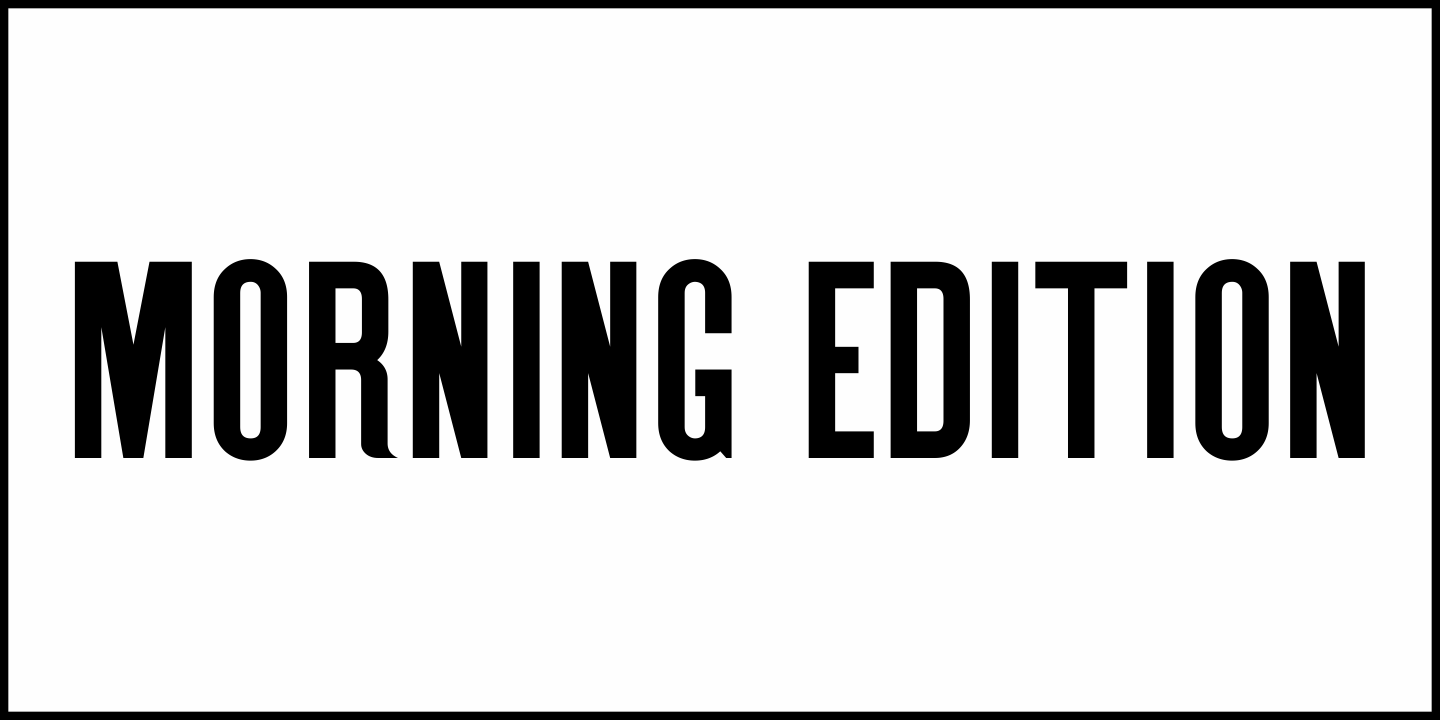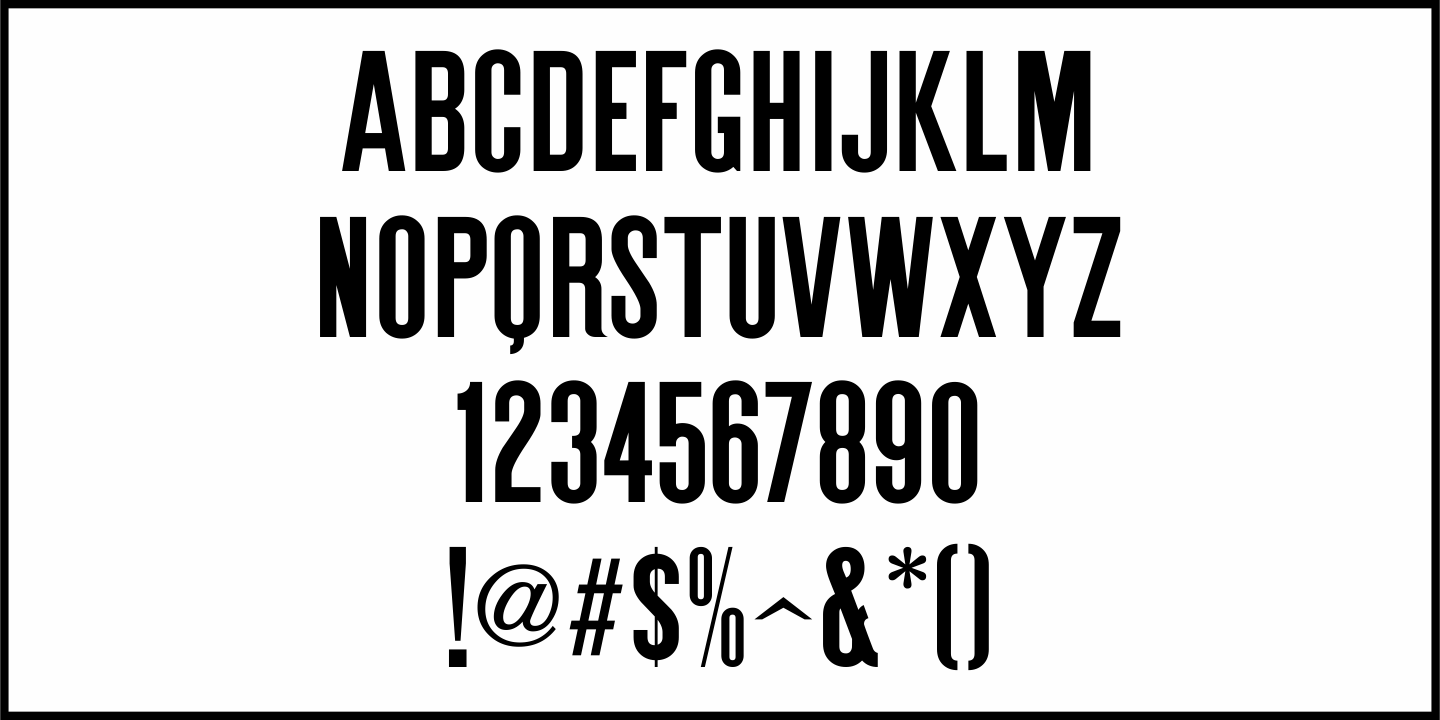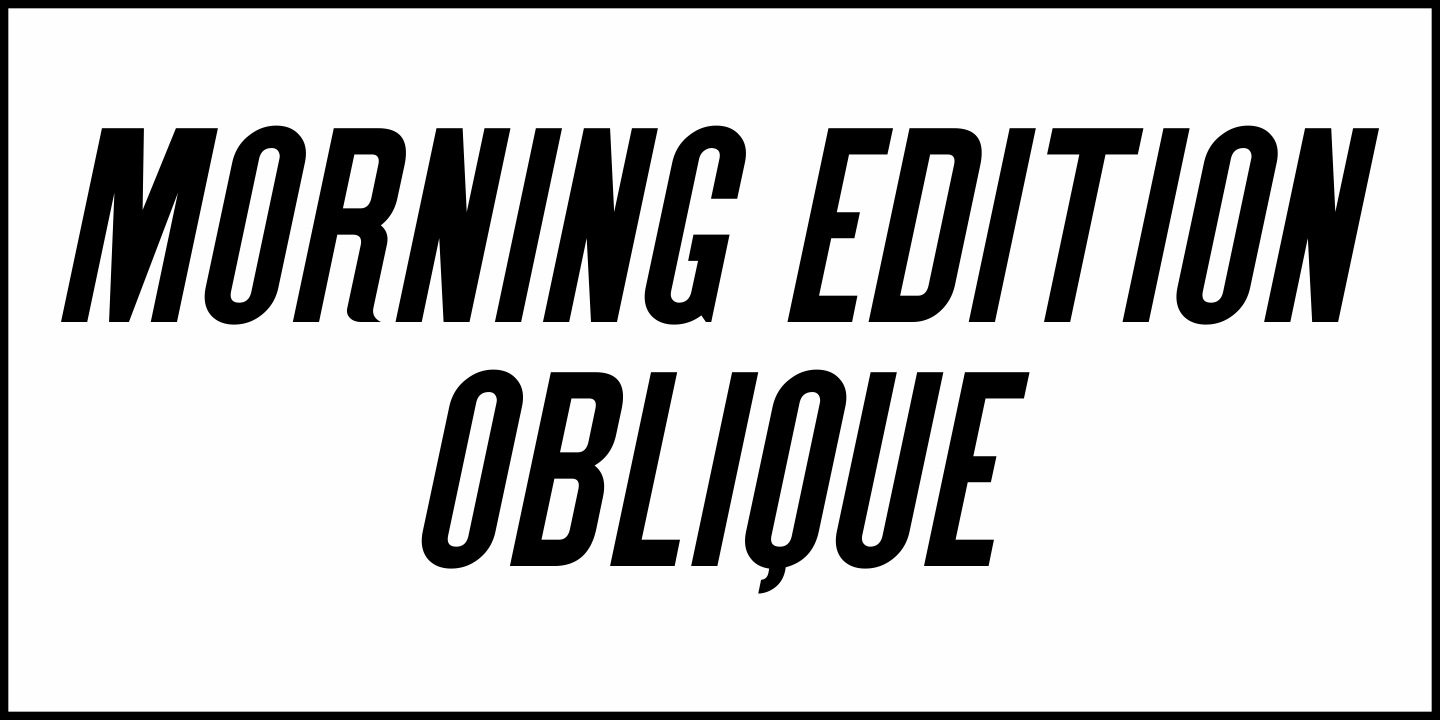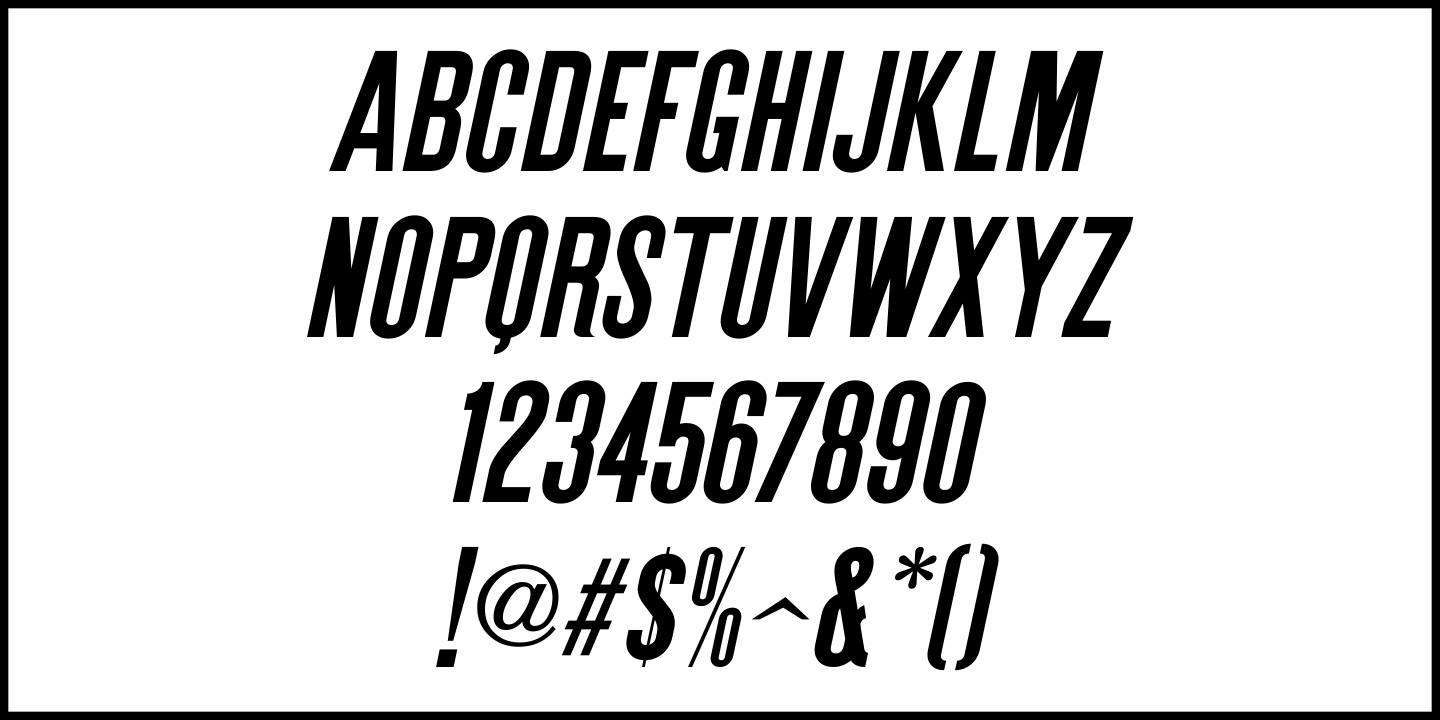
Morning Edition
The front page headline of the April 6, 1917 edition of the Bemidji Pioneer [from Bemidji, Minnesota] says in extrabold letters: “State of War is Declared”. The subtext underneath reads: “President Signs Resolution 1:13 P.M., Passed by House 3 O’Clock this Morning”. Thus, the United States formally entered into World War I.
However… that subtext was set in a sans serif type face which was a perfect addition to the numerous newspaper-inspired type revivals offered by Jeff Levine Fonts.
Morning Edition JNL is available in both regular and oblique versions.